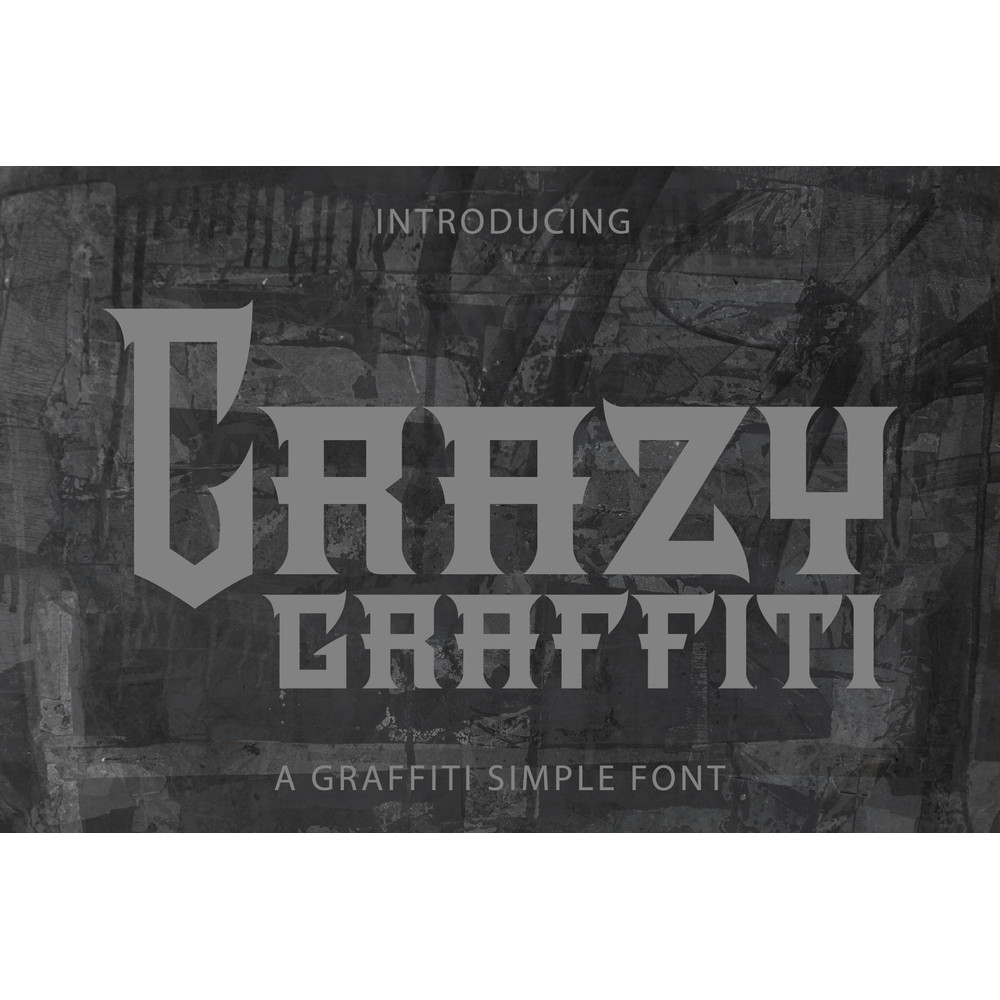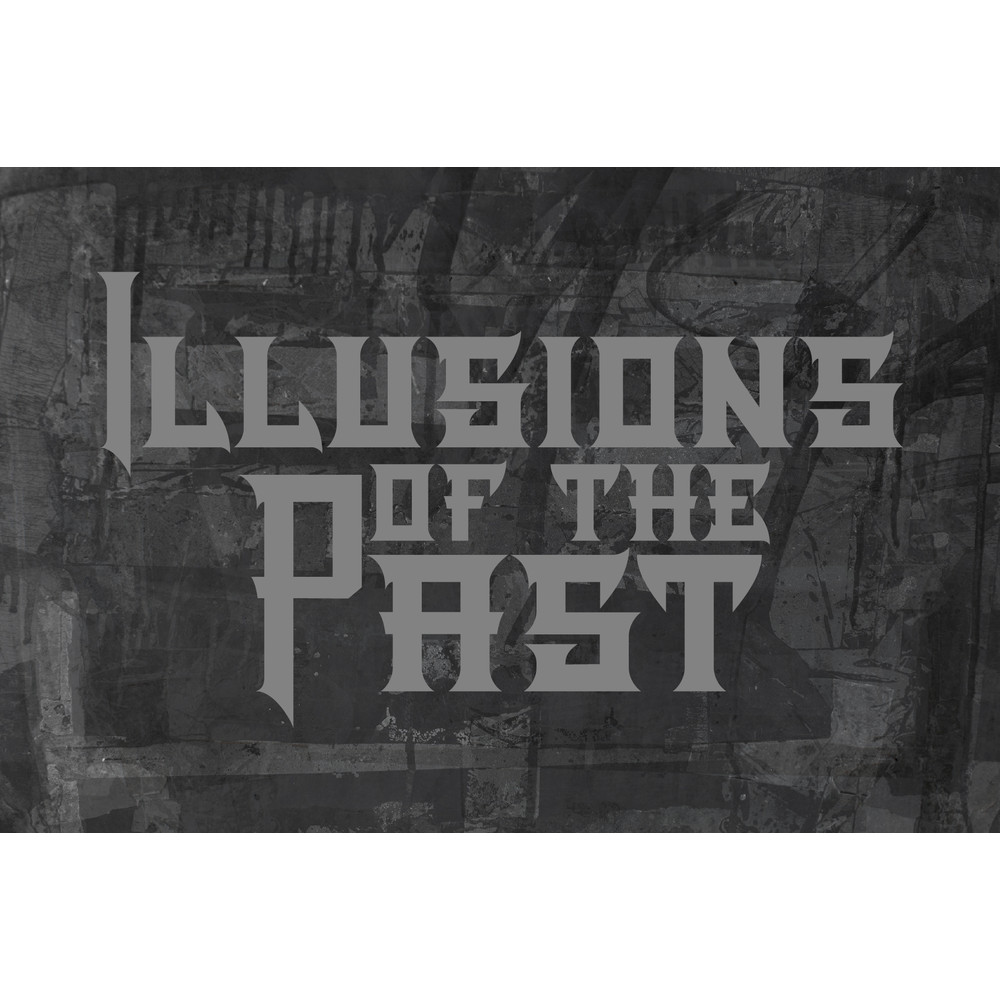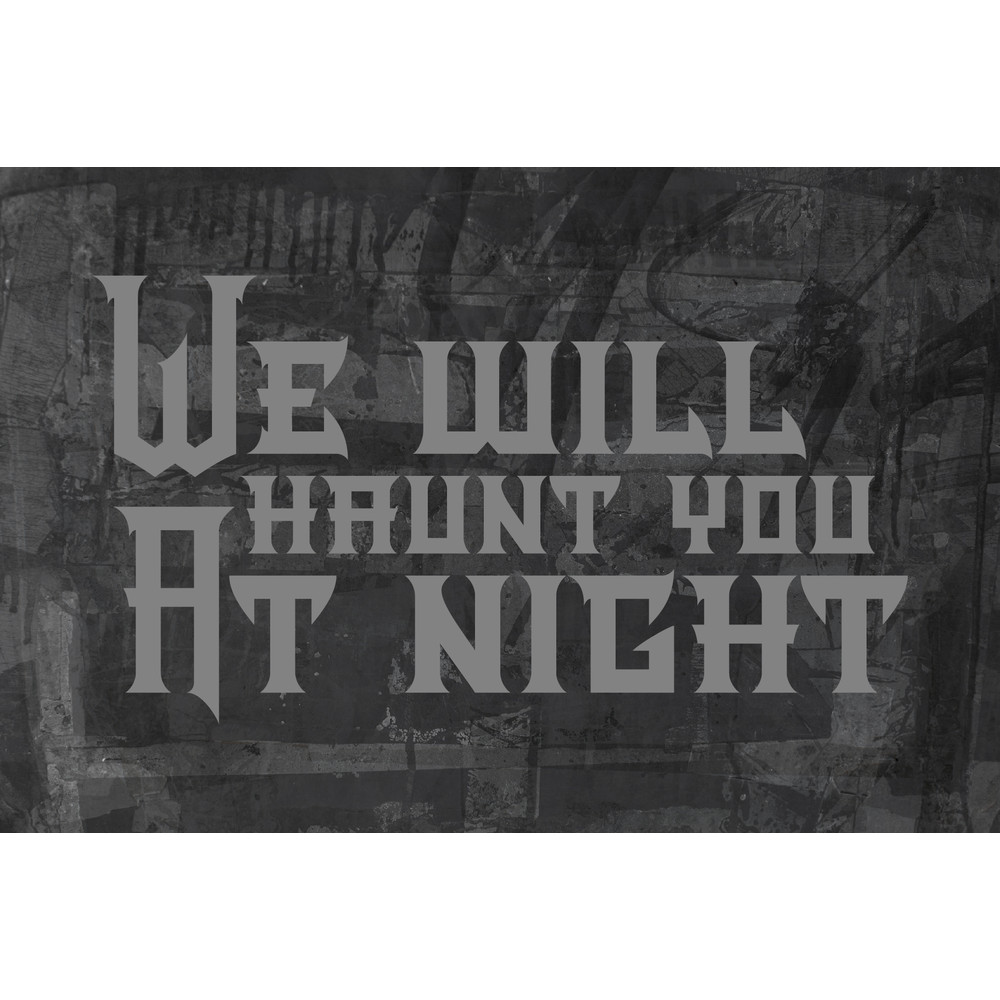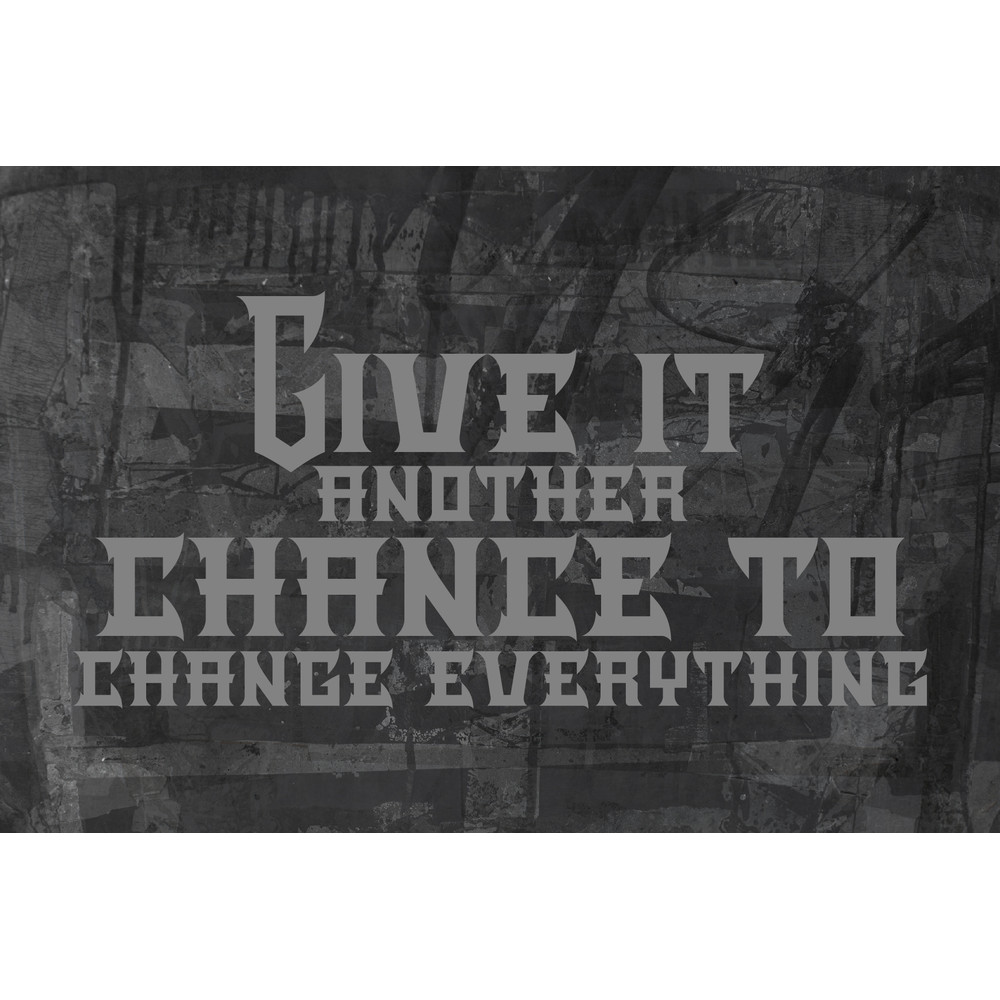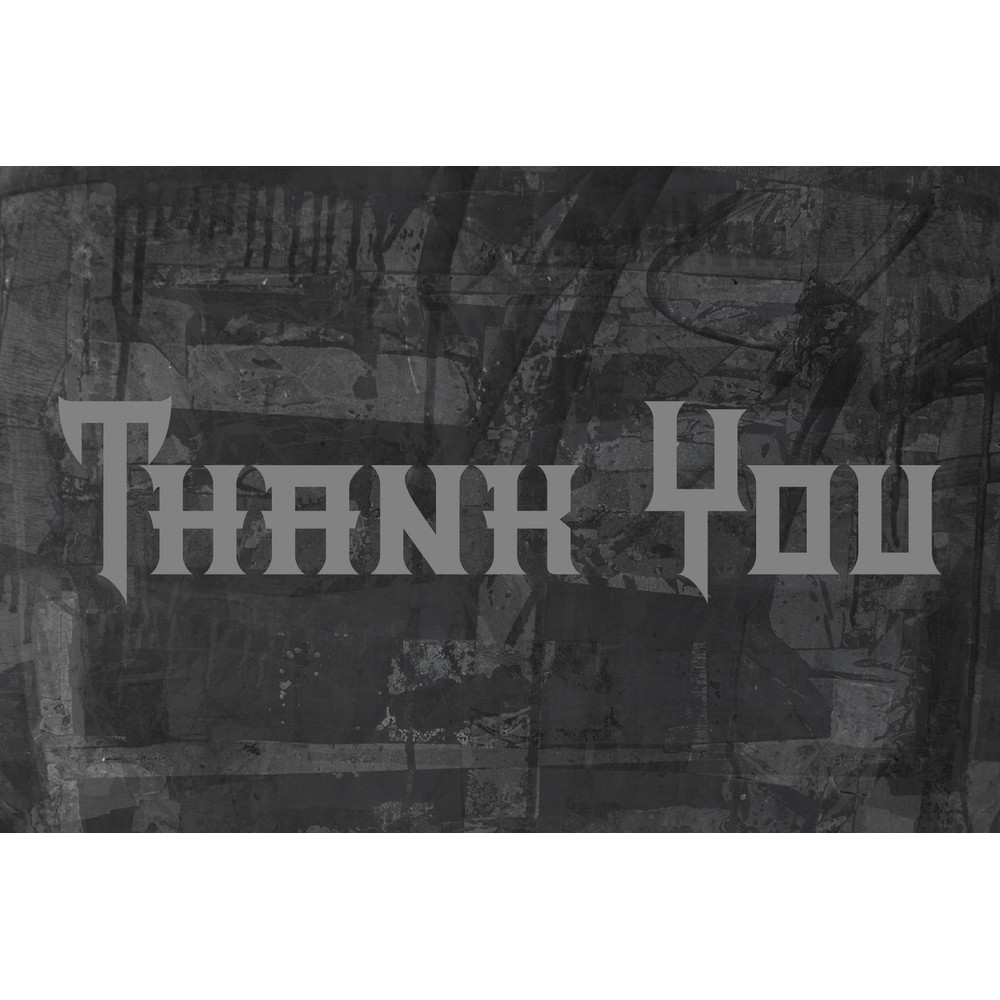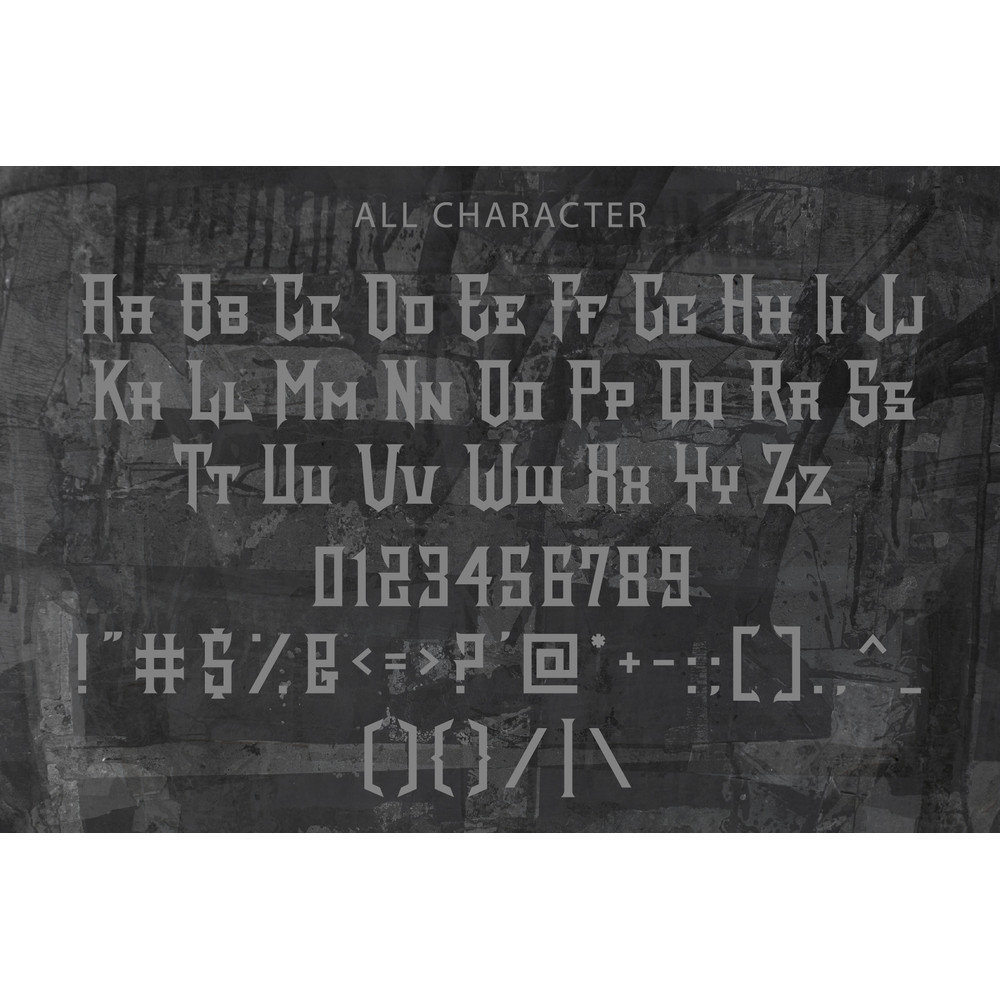
Crazy Graffiti Font
Crazy Graffiti is a bold and chunky lettered display font that playfully evokes the iconic look and style of graffiti. Add this font to your urban and casual creations and you will love the outcome.